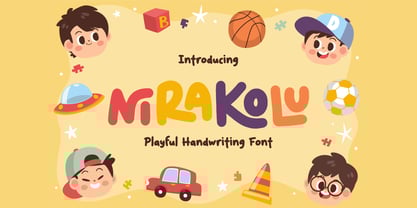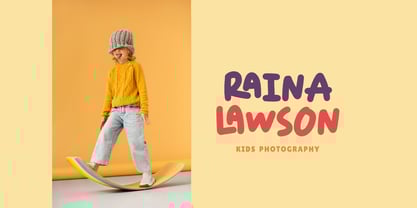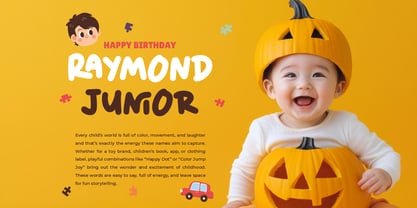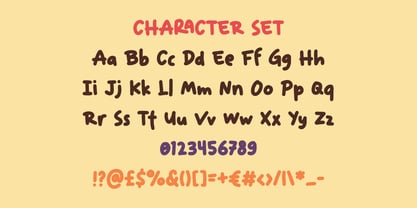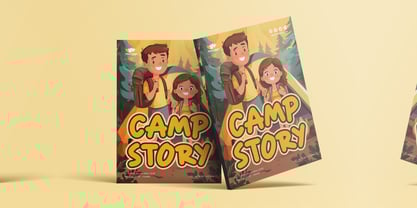
Nirakolu
by Shanaf
The Nirakolu Font Family was designed by Yesie Erma Yunita and published by Shanaf. Nirakolu contains 1 styles.
Nirakolu Playful Handwriting Font is a joyful typeface that captures the carefree spirit of childhood and playful doodling. The characters are bold and rounded with slightly uneven heights, giving each letter a lively handmade touch. Its handwritten style radiates friendliness, while the thickness of the strokes ensures clarity and readability. With smooth curves and a casual balance, the font creates a sense of fun, energy, and creativity. This makes it perfect for projects that want to emphasize happiness, imagination, and childlike wonder. Nirakolu Playful Handwriting Font is versatile for many applications such as children’s books, toys, birthday invitations, packaging, posters, and playful branding. It is also great for logos, greeting cards, stickers, social media posts, and magazine covers that aim for a cheerful and approachable tone. The doodle-inspired strokes make it especially appealing for kid-related projects, but it can also brighten up casual designs in lifestyle and entertainment industries. By combining boldness with a friendly personality, this font helps designers create engaging visuals that stand out and connect emotionally. Nirakolu Playful Handwriting Font is the perfect solution for anyone looking to add playful energy and handwritten charm to their creative work.
Designers: Yesie Erma Yunita
Publisher: Shanaf
Foundry: Shanaf
Design Owner: Shanaf